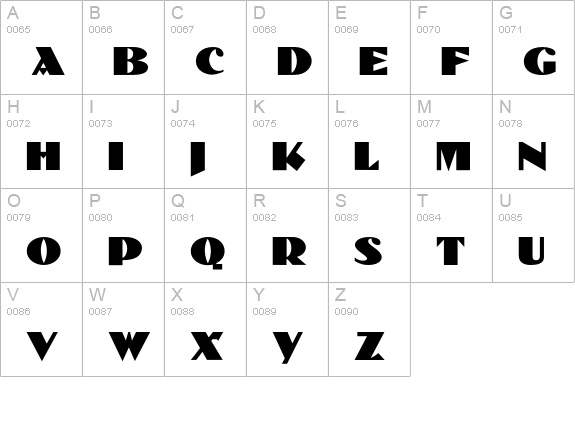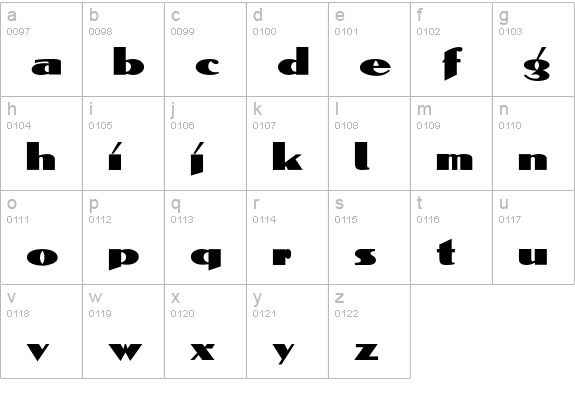
Belmondo Font Details
Belmondo font is a stylish and elegant typeface that exudes sophistication and charm. Its sleek lines and modern design make it perfect for a wide range of design projects, from branding to editorial layouts. The clean and legible characters of Belmondo font make it a versatile choice for both digital and print applications. Best of all, Belmondo font is completely free to download! You can easily access this beautiful typeface at FontsMarket.com, where you can enhance your creative projects with this stunning font without any cost. Don't miss out on the opportunity to add Belmondo font to your font library and elevate your designs with its timeless appeal.